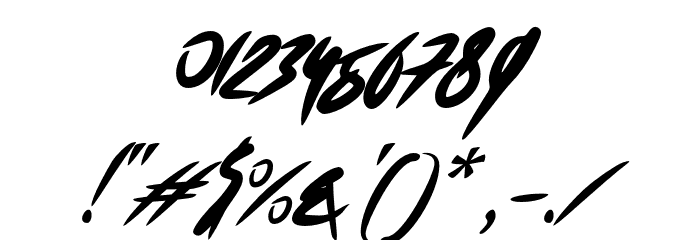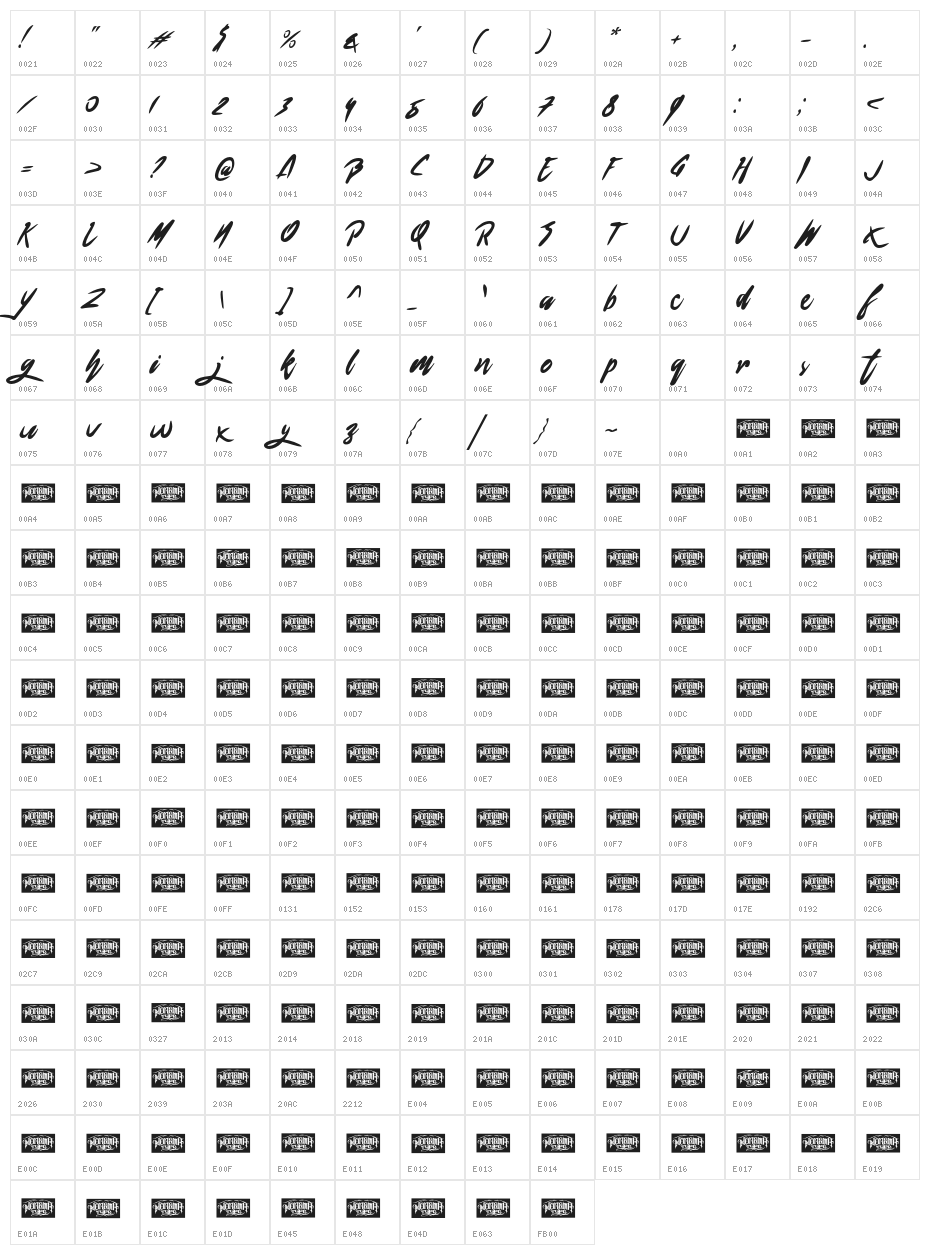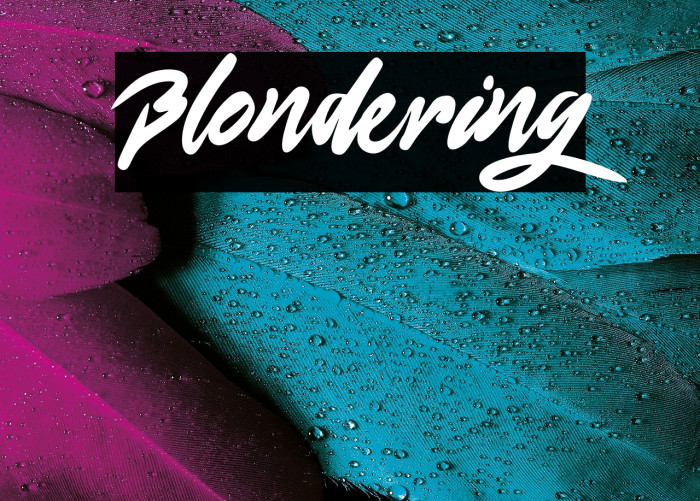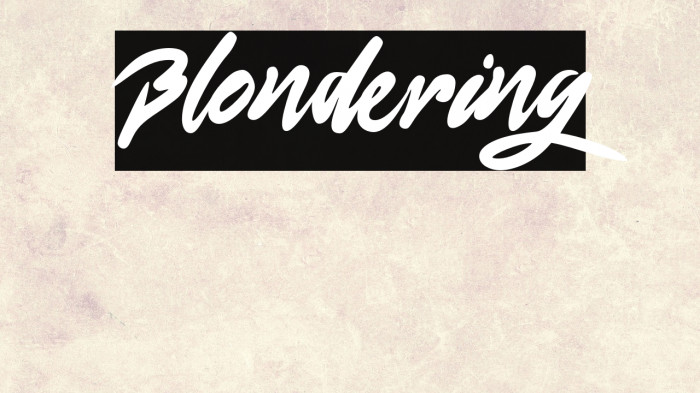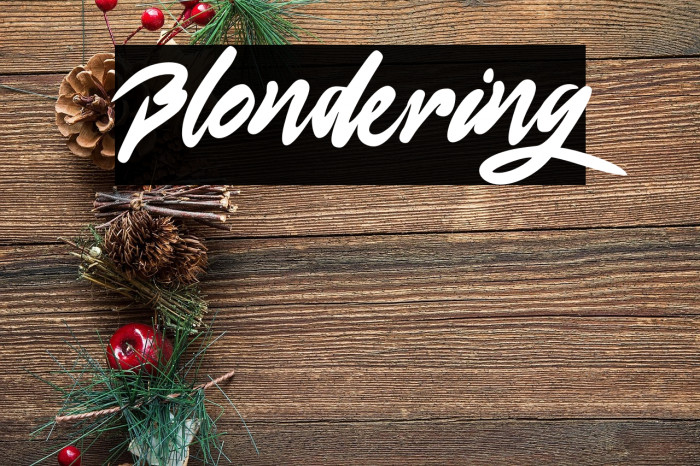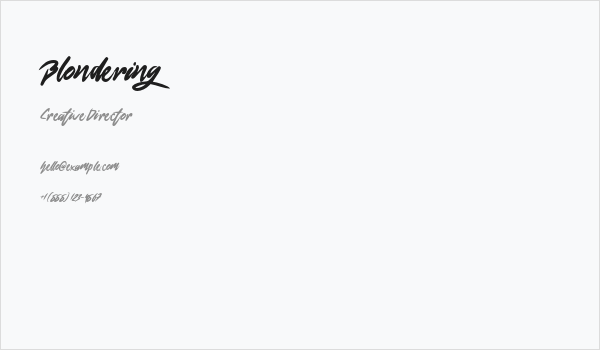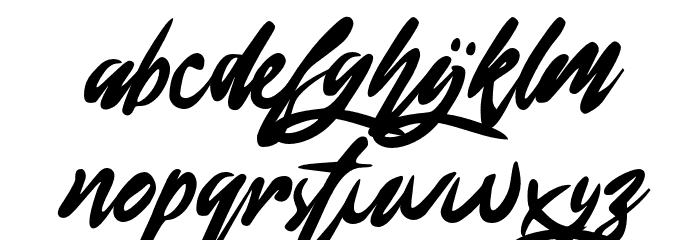
Blondering Font
Blondering Description
This font exudes a bold and dynamic energy, characterized by its thick, sweeping strokes and a sense of movement reminiscent of brush calligraphy. The letters are highly stylized, with sharp angles and a slightly slanted orientation, giving it a modern and edgy feel. The uppercase and lowercase letters maintain a consistent style, with the lowercase letters featuring distinctive loops and curves that enhance its artistic flair. The numerals and special characters are equally expressive, maintaining the font's overall aesthetic. This font is perfect for projects that require a strong visual impact and a touch of creativity.